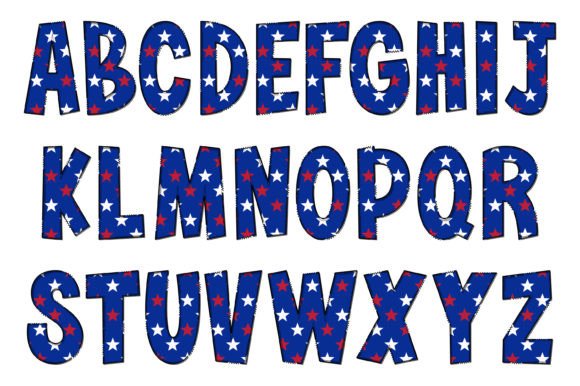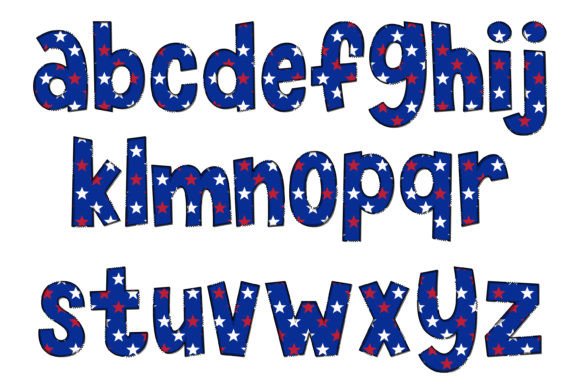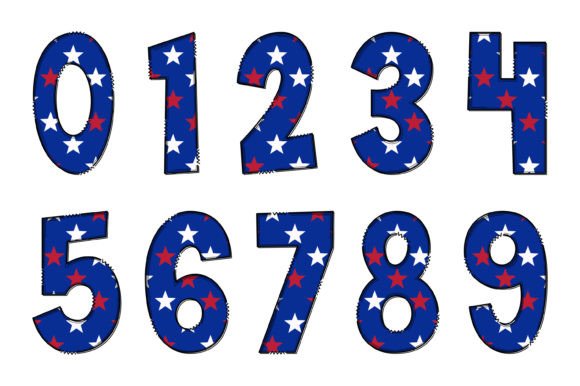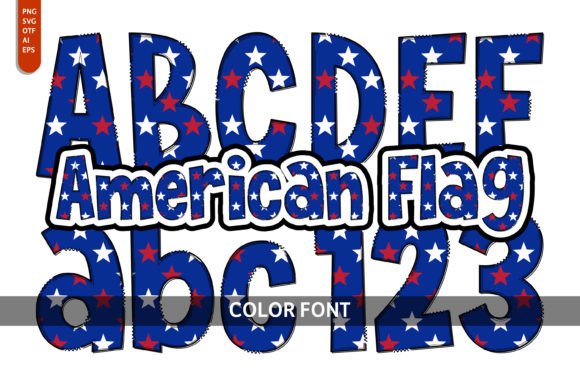
Unleashing Patriotism in Design: The American Flag Font Story
I’ll never forget the summer I was tasked with creating a festive Fourth of July design for a client’s social media campaign. As I scrolled through font libraries, I struggled to find the perfect typeface that embodied the spirit of the American flag. That’s when I stumbled upon the American Flag font – a vibrant, patriotic color font that instantly captured the essence of American pride.
American Flag Font: A Patriotic Design Essential
The American Flag font is a stunning addition to any design project, evoking feelings of patriotism and national pride. Its bold, colorful letters are perfect for creating eye-catching designs for Independence Day celebrations, Memorial Day, or simply showcasing your love for the United States.
Here’s what I love about the American Flag font:
- ✨ Vibrant colors: The font’s bold, patriotic colors instantly grab attention and evoke a sense of national pride.
- ✅ Ease of use: The font is incredibly easy to use, even for those without extensive design experience.
- 🎉 Festive vibe: The American Flag font perfectly captures the spirit of American celebrations, making it perfect for Fourth of July designs, patriotic crafts, and more.
And, of course, no font is perfect. Here are a few quirks to consider:
- 🤔 Limited versatility: While the font excels at patriotic designs, it may not be the best choice for more formal or professional projects.
- ⚠️ Color consistency: Depending on the platform or software used, color consistency may vary. Be sure to check your design across different devices and platforms.
The American Flag font comes with a range of OpenType features, glyphs, and stylistic alternates that can elevate your designs. Experiment with:
- Swashes: Add a touch of elegance to your designs with swashes.
- Stylistic alternates: Experiment with different letterforms to create a unique look.
- Glyphs: Access a range of glyphs to add variety to your design.
The Designer Inspiration Behind American Flag Font
The American Flag font was inspired by the bold, patriotic spirit of the United States. Its creator aimed to craft a font that would evoke feelings of national pride and celebration. The result is a font that’s perfect for designers, crafters, and creative hobbyists looking to add a touch of Americana to their projects.
| Font Name | American Flag Font |
| Author | Imagination Switch |
| What type of designs is the American Flag font best suited for? | The American Flag font is perfect for patriotic designs, Fourth of July celebrations, Memorial Day designs, and any project that requires a bold, festive touch. |